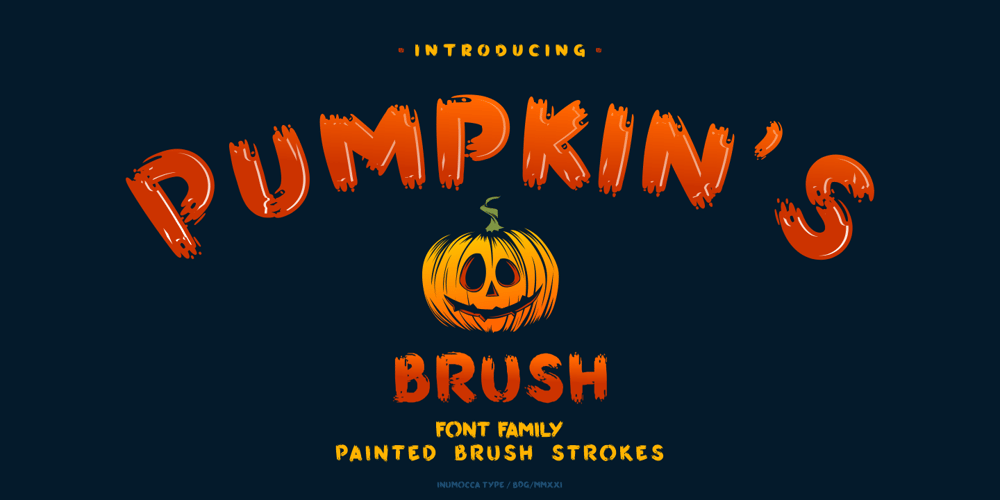
Pumpkins Brush
Pumpkins Brush font
Pumpkins Brush Font Family was designed by Inu Mocca and published by Inumocca. Pumpkins Brush contains 3 styles and family package options. Pumpkin’s Brush Family Font inspiration from Halloween character, scream,wets, dirty and raw. Absolutly modern glyph and great to playing typography, or your logos , signature , signageyour shop, Logos, catalog , all about of fashions and arts. Its very easy to use Unique glyphs- Multilingual Characters Support- UPPERCASE- Lowercase- Numeric- Symbol- Punctuation CharacterInumocca typeStudio